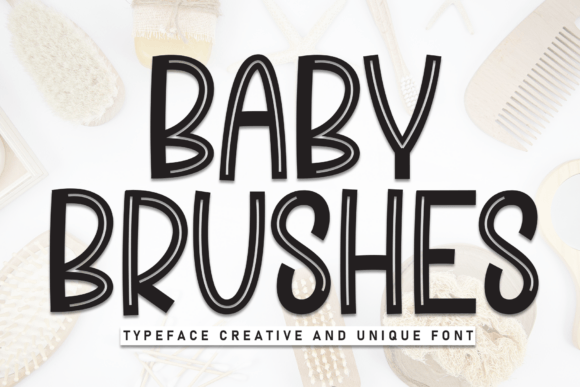
The Perfect Brushstroke: Unleashing Your Creativity with Baby Brushes Font
You’ve got that moment – the spark that ignites your creativity. Maybe it’s a fleeting thought during a late-night coffee session or a burst of inspiration while flipping through a design magazine. Whatever the trigger, you know exactly what you want to create. For designers, that spark often leads to a quest for the perfect font to bring their vision to life. Enter Baby Brushes Font, a charming handwritten font that embodies the essence of friendliness and natural elegance.
As a designer, you understand the value of a font that can elevate your designs and make them truly special. Baby Brushes Font is more than just a pretty face – it’s a versatile tool that can be used in a wide range of projects, from invitations and posters to digital products and social media graphics. Its unique style and character make it an invaluable addition to any designer’s toolkit.
Baby Brushes Font Key Features
- Unique Characteristics: The Baby Brushes Font features hand-painted, whimsical brushstrokes, giving it a playful and artistic feel.
Designer Review: Baby Brushes Font
Overall, I think Baby Brushes Font is a cute and playful choice for a nursery or kids’ brand. ✨ The rounded edges and soft lines evoke a sense of warmth and approachability. It’s a great option for creating a welcoming atmosphere.
Some of the strengths of Baby Brushes Font include:
- Easy to read, even at smaller font sizes
- Works well in digital and print applications
- Highly customizable, with a range of font weights and styles
- Includes a wide range of punctuation and symbol glyphs
- Not ideal for use in formal or professional settings
- May not be suitable for extended blocks of text, as it can become tiresome to read
- Some characters may appear slightly irregular or inconsistent
Overall, I’d say Baby Brushes Font is a solid choice for designers working on kids’ or nursery projects. While it may not be the best option for every project, it’s a great fit for certain applications. With careful use and consideration, it can add a playful touch to a design.
Getting the Most Out of “Baby Brushes Font”
For best results, use “Baby Brushes Font” in designs that require a playful and whimsical feel. This font is particularly well-suited for children’s products, nursery decor, and baby-related branding.
“Baby Brushes Font” is commonly used for:
- Children’s product packaging and labeling.
- Nursery decor and wall art.
- Baby-related branding and marketing materials.
- Party invitations and decorations.
- Use the Baby Brushes Font to create a phrase or a quote that resonates with the nursery theme, such as “Dream Big” or “You Are Loved”.
- Combine the font with hand-painted illustrations or watercolor designs to add a touch of whimsy and elegance.
- Tip: Pair the font with a soft, pastel color palette and intricate details to create a cohesive and soothing atmosphere.
- Use the Baby Brushes Font to create a playful headline or a cute phrase, such as “Little Peanut on Board” or “Baby [Name] is Coming!”.
- Combine the font with colorful illustrations, patterned backgrounds, or adorable graphics to add visual appeal.
- Tip: Balance the playful font with clean and simple text to ensure the invitation remains easy to read and understand.
- Use the Baby Brushes Font to add a touch of whimsy and personality to the book’s title page or throughout the pages.
Creative Projects with Baby Brushes Font
Project 1: Whimsical Nursery Art
Transform a nursery into a magical world with a customized wall art piece featuring the Baby Brushes Font.
Project 2: Baby Shower Invitations
Design adorable baby shower invitations that set the tone for a joyful celebration with the Baby Brushes Font.
Project 3: Personalized Baby Book
Create a heartfelt and personalized baby book that celebrates the milestones and memories of a precious little one with the Baby Brushes Font.